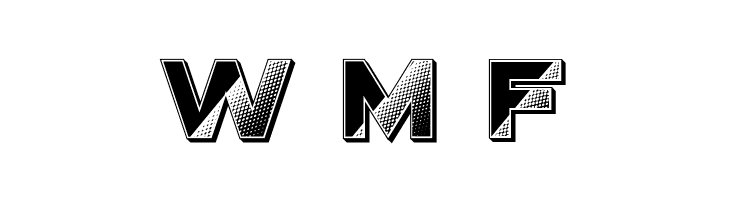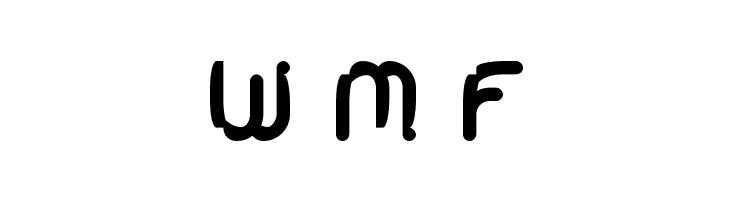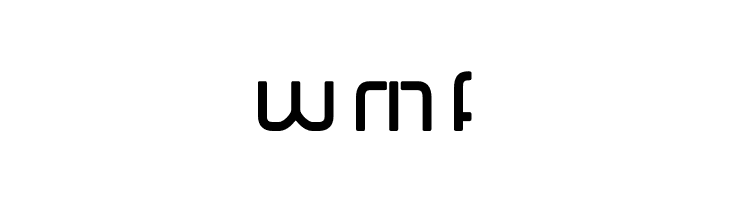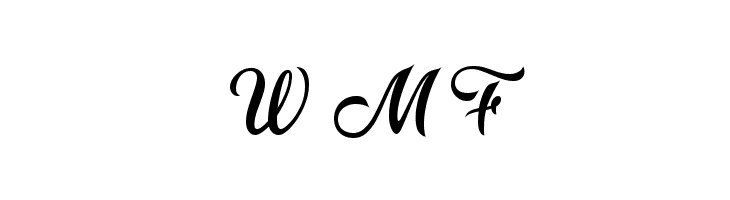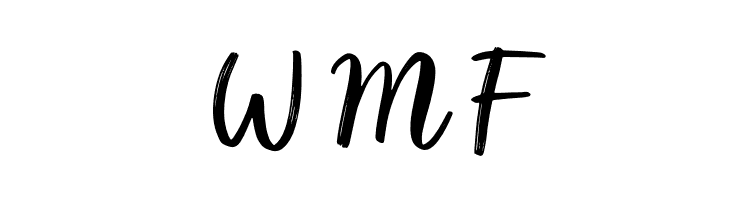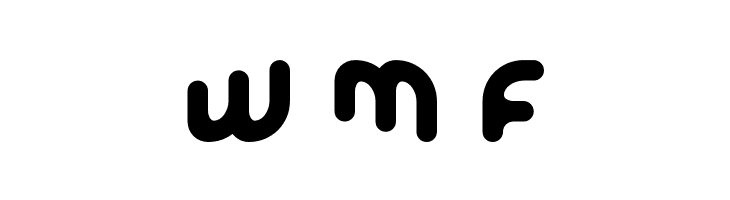
A bold, decorative font with a 3D effect and dotted textures.
A graceful script font with flowing curves and decorative flourishes.
A bold, gothic-inspired font with sharp, angular lines and dramatic curves.
A bold, dynamic font with thick, rounded strokes and a slightly slanted, energetic style.
A bold, brush-like font with dynamic and energetic strokes.
A bold, dynamic font with a brush-like, energetic style.
A modern, rounded font with smooth, continuous lines and a playful aesthetic.
A bold, italic font with smooth, flowing curves and a modern, artistic style.
A modern, flowing italic font with sleek curves and consistent stroke width.
A modern, hollow font with smooth curves and a futuristic aesthetic.
A modern, fluid font with thin lines and elegant curves, perfect for contemporary designs.
A modern, minimalist font with geometric, continuous lines and rounded edges.
A whimsical, sketch-like font with playful and artistic character designs.
A whimsical collection of hand-drawn doodles and characters.
A bold, dynamic script font with fluid, cursive strokes and artistic flair.
A graceful and flowing script font with elegant, cursive lines.
A fluid and elegant handwritten font with a natural, personal touch.
Elegant handwritten script font.
A bold, playful handwritten font with a cartoonish style and thick outlines.
A bold, playful font with thick outlines and a cartoonish style.
A playful and elegant script font with a handwritten touch.
A bold, playful handwritten font with rounded, uniform strokes.
A bold, 3D-effect font with a playful and structured design.
A bold, geometric font with a hand-drawn, edgy style.
A bold, angular, hand-drawn font with a dynamic and energetic style.
A casual, playful handwritten font with uneven strokes and an organic flow.
A playful, brush-style font with rounded, organic shapes and a hand-drawn feel.
A modern, geometric font with rounded edges and consistent stroke width.
A futuristic, geometric font with bold, blocky letterforms.
A playful, rounded typeface with a bold and whimsical style.